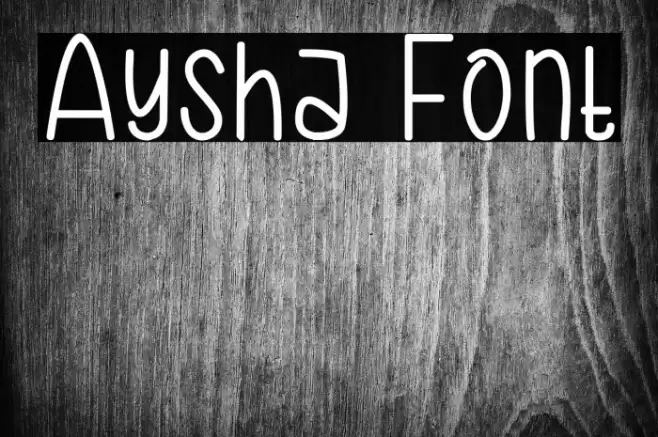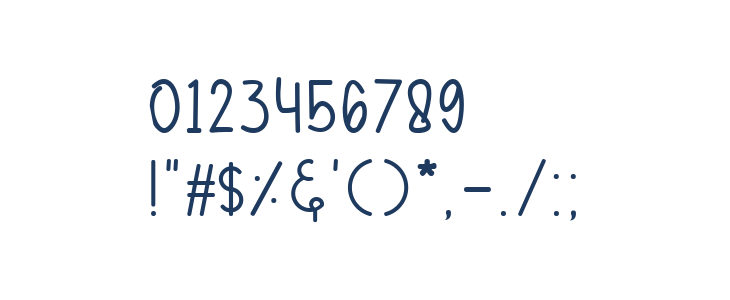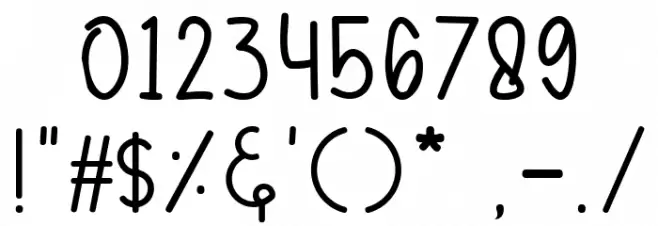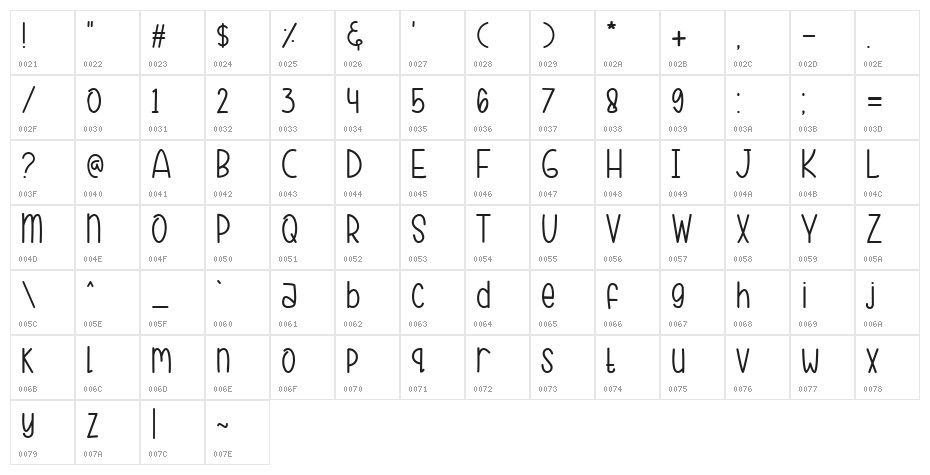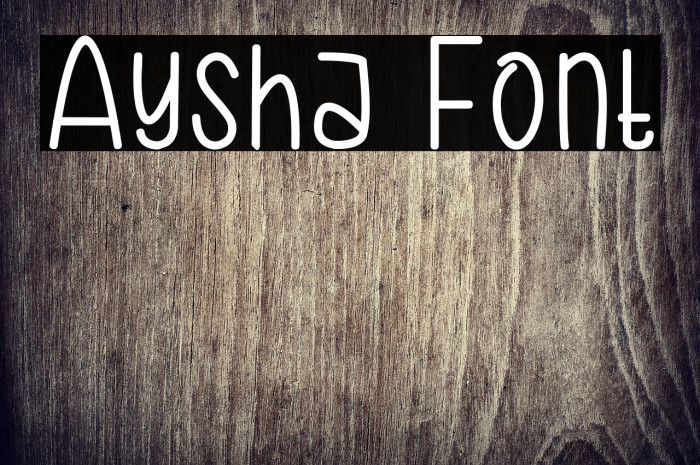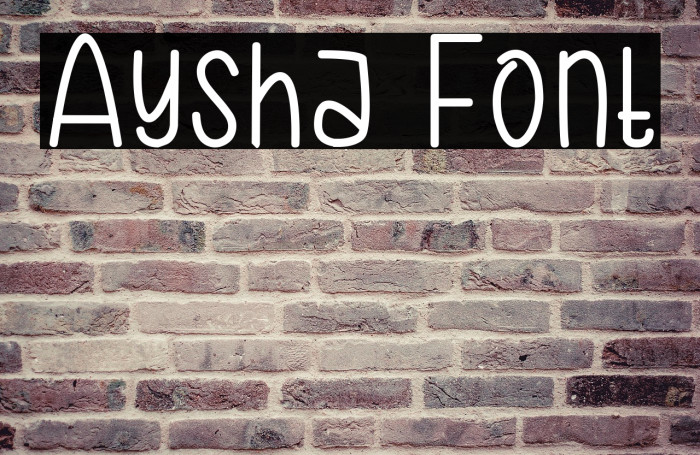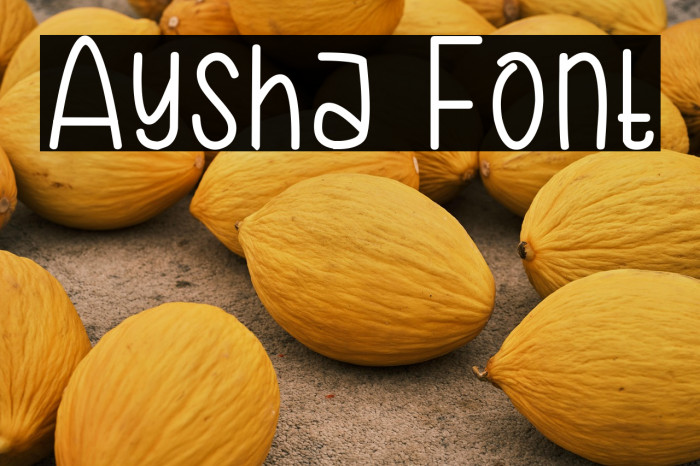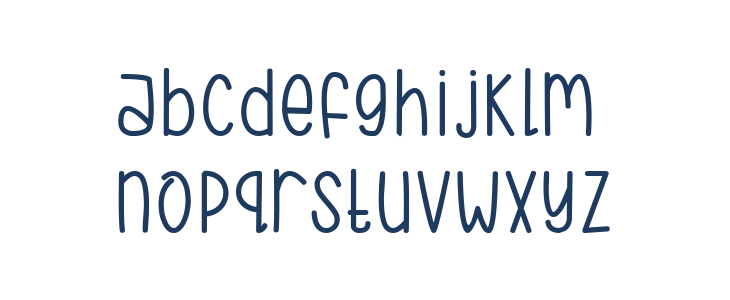
Aysha Font
Aysha Description
This playful and whimsical font features rounded, smooth edges and a hand-drawn appearance. The characters are slightly elongated, giving them a tall and narrow look. The strokes are consistent in width, contributing to a clean and uniform appearance. The font maintains a casual and friendly vibe, making it suitable for informal and creative projects. It includes a full set of uppercase and lowercase letters, numbers, and a variety of special characters, ensuring versatility in its applications.
A playful, hand-drawn font with rounded edges and a casual style from Regular fonts.
- Proposed Projects: Ideal for children's books, greeting cards, playful branding, and creative posters.
- Overall Style: Casual
- Use Case: Headlines, Logos, Informal Text